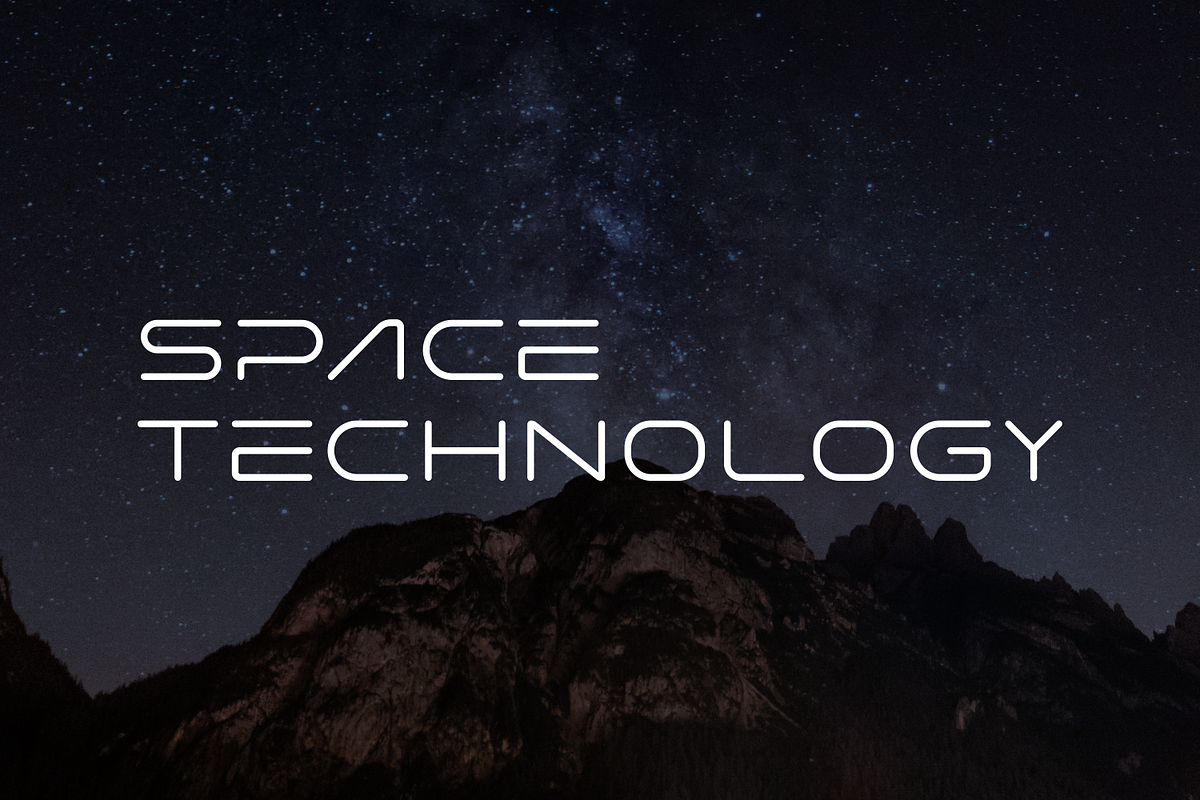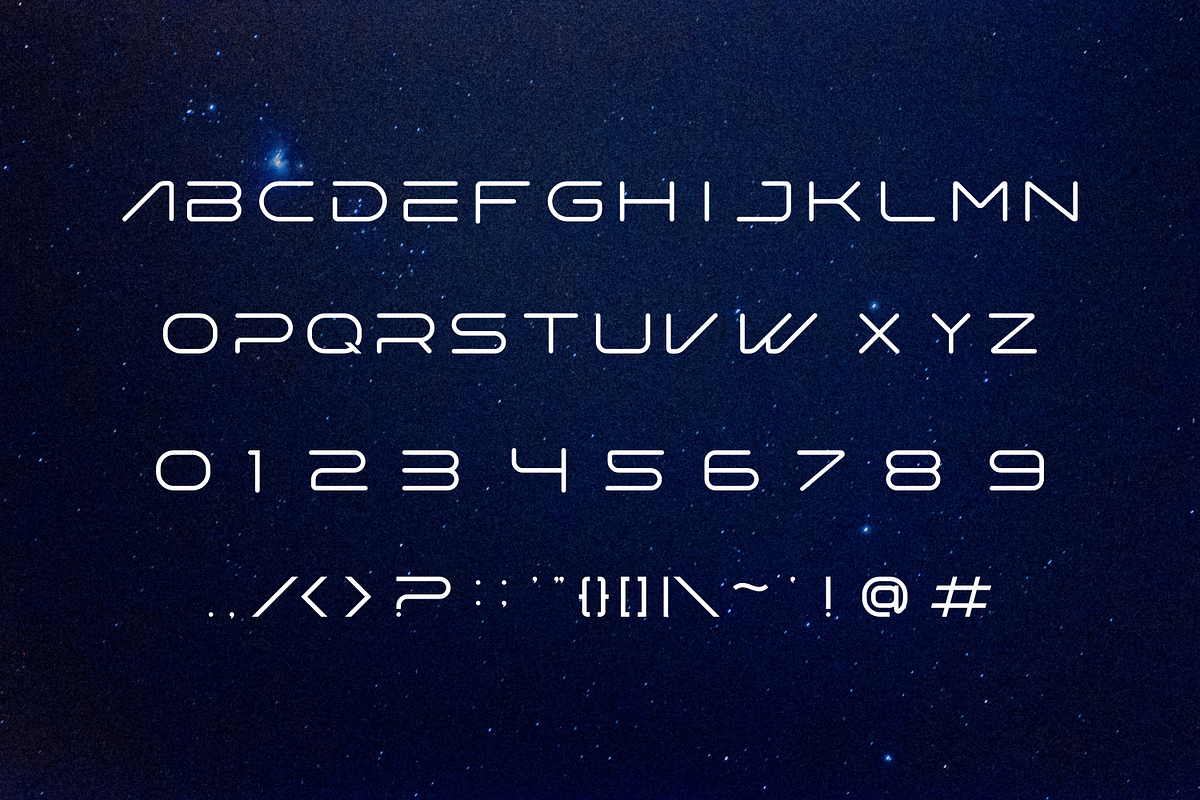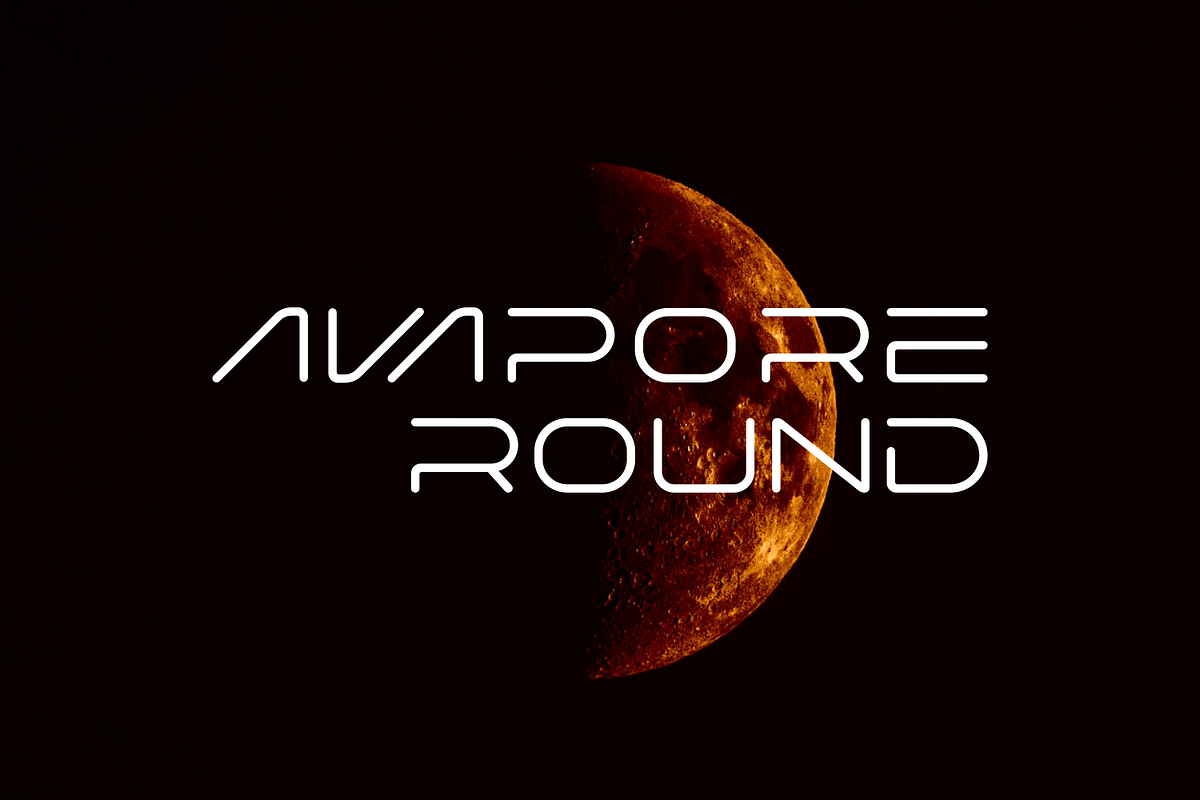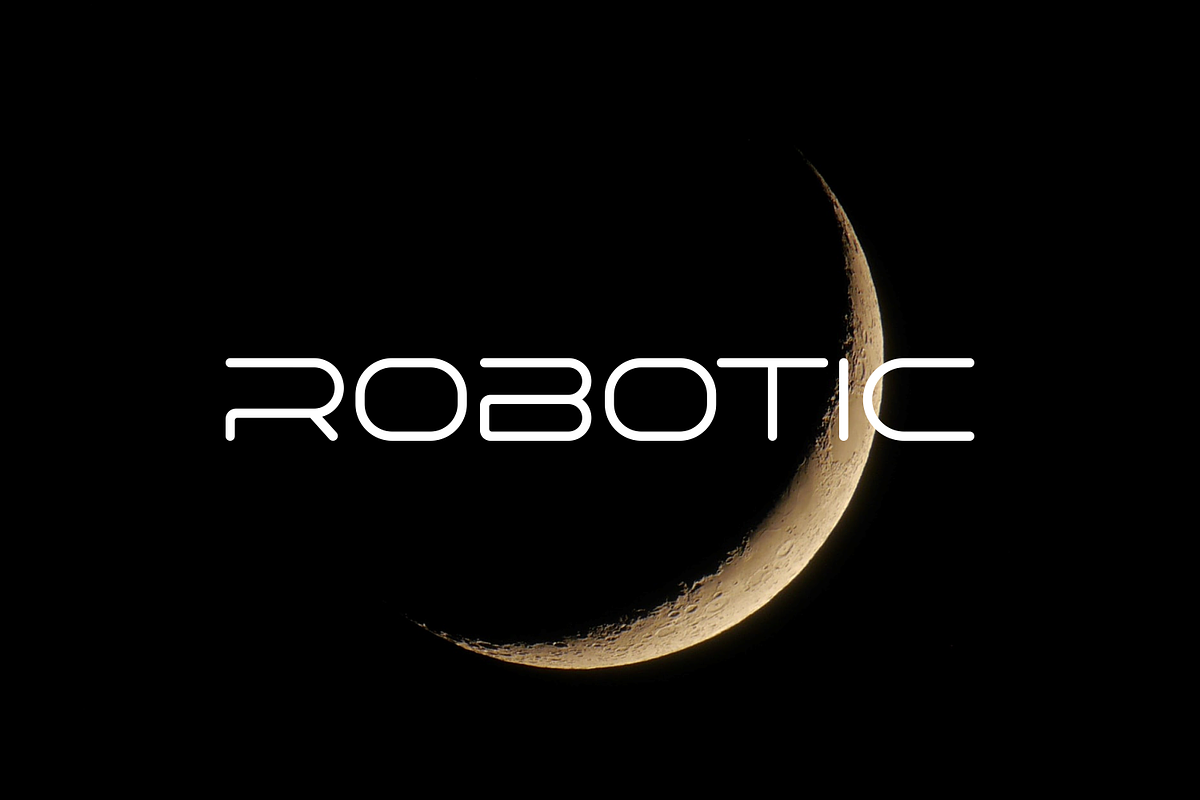
Avapore Round
Avapore Round Perfectly suited on print/screen. it’s perfect for Branding, name card, poster, logo, magazine, cover, banner, t-shirt and headers, or even large-scale artwork.